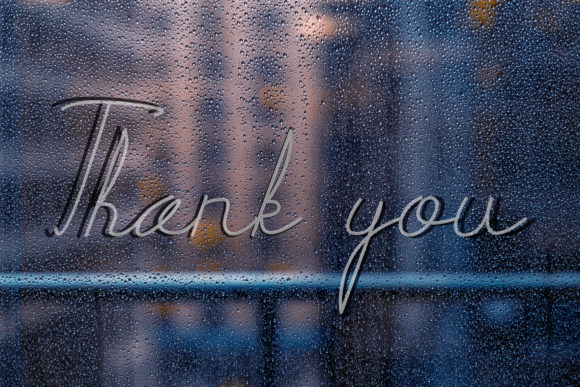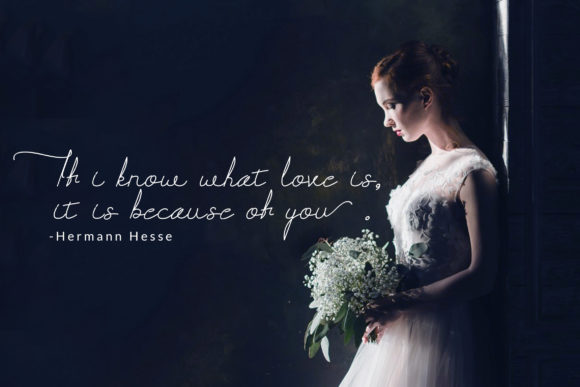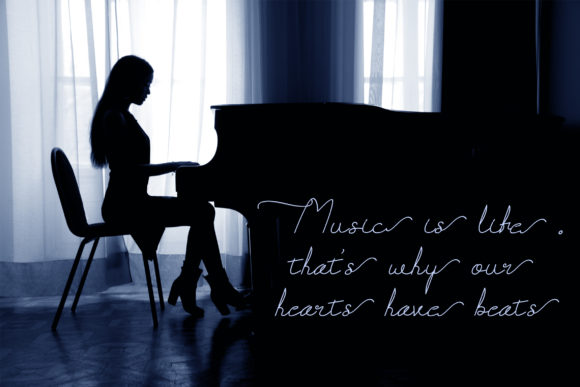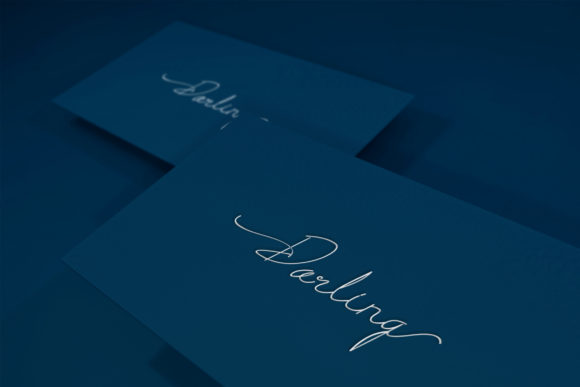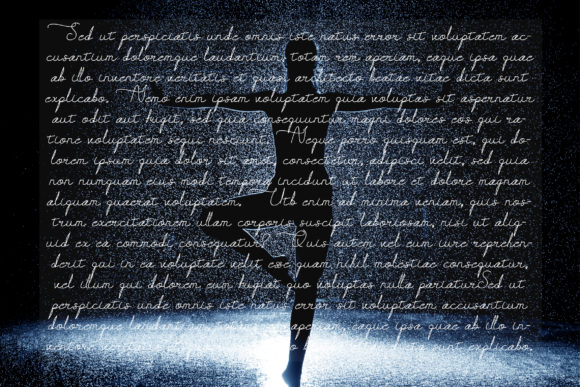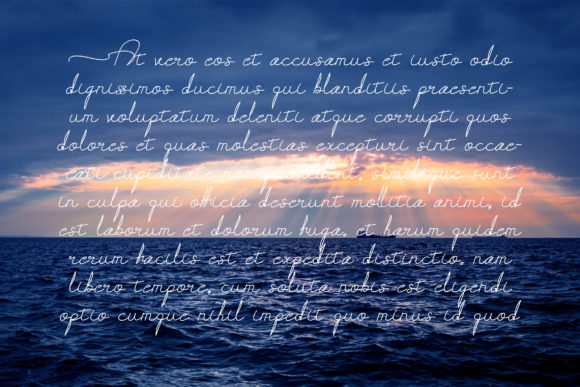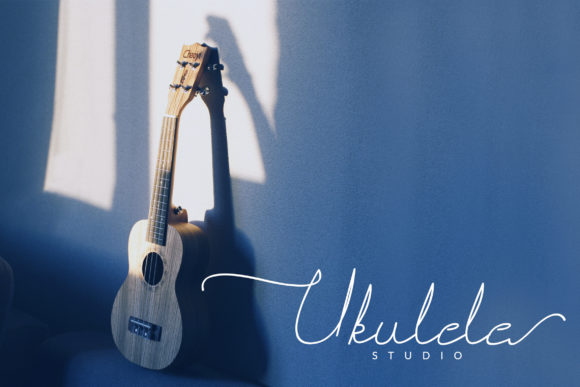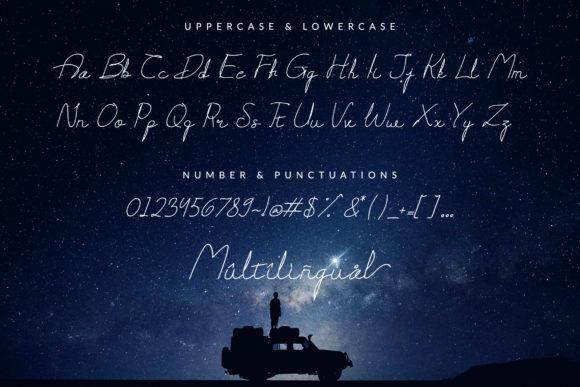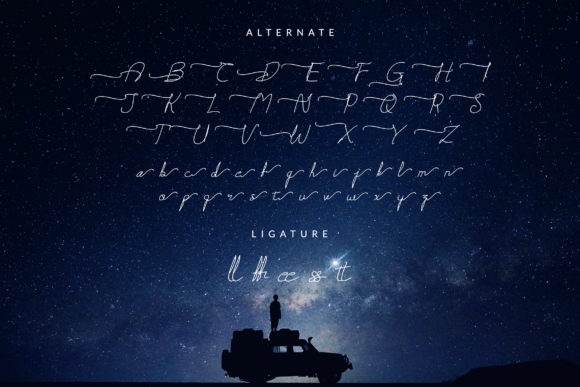
Darling Font
About Darling Font
Darling is a sweet and cool handwritten font with a bold flavor. Use it to add an authentic vibe to any design project.